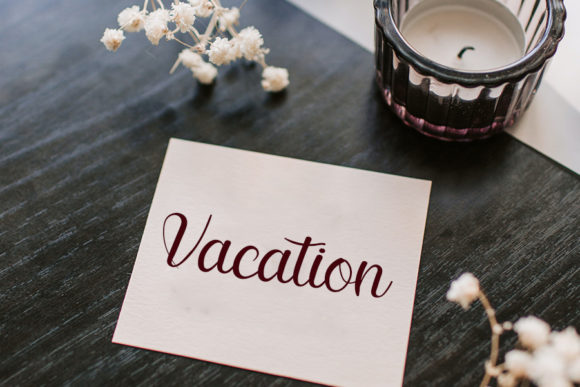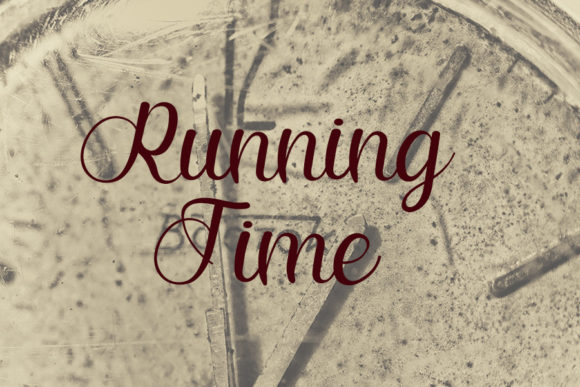
Wise Father Font
db-ku.com - Script & Handwritten -- Wise Father is a friendly and tall handwritten font, carefully designed to become a true favorite. It maintains its classy calligraphic influences while feeling contemporary and fresh.